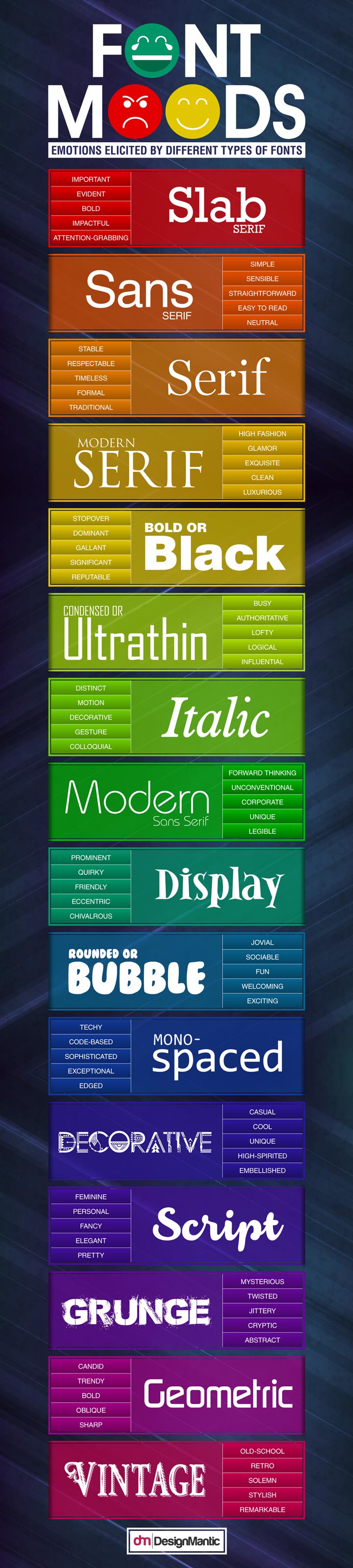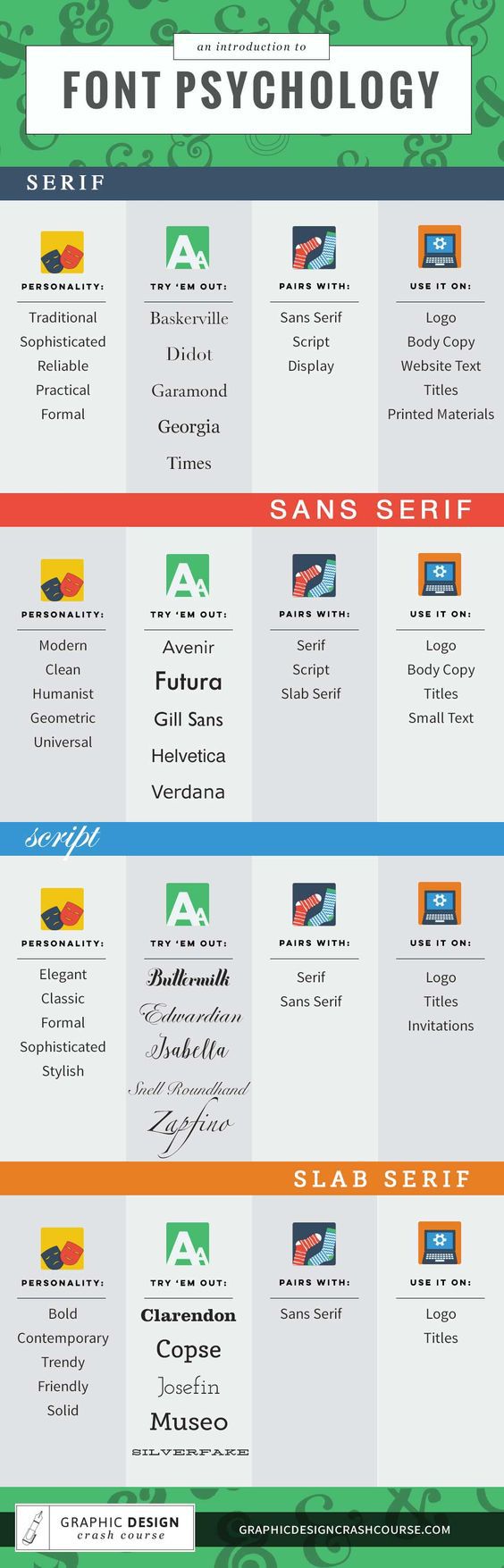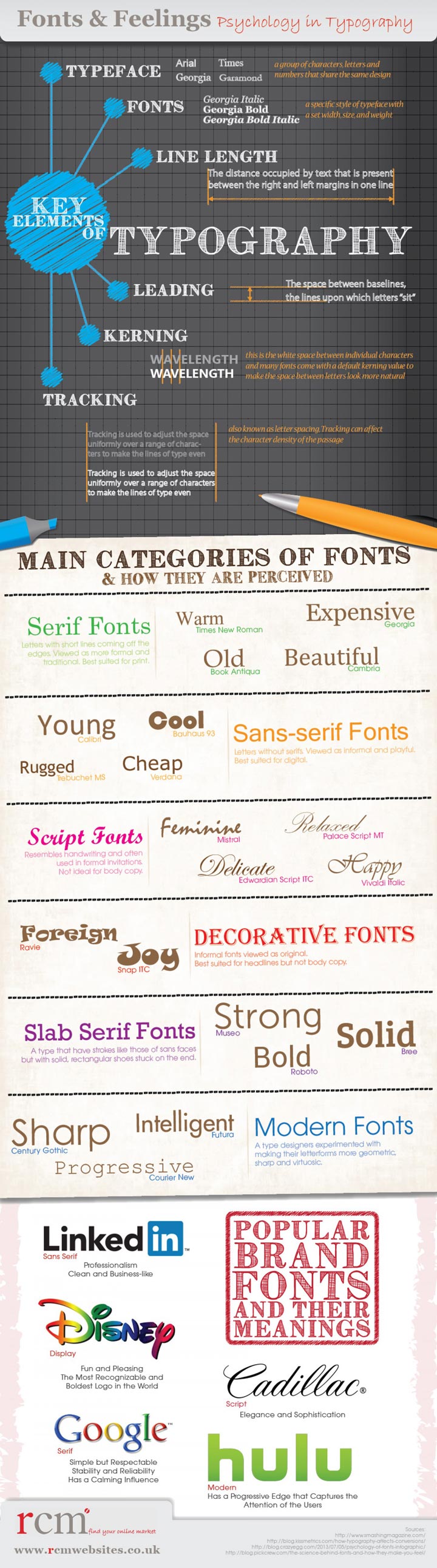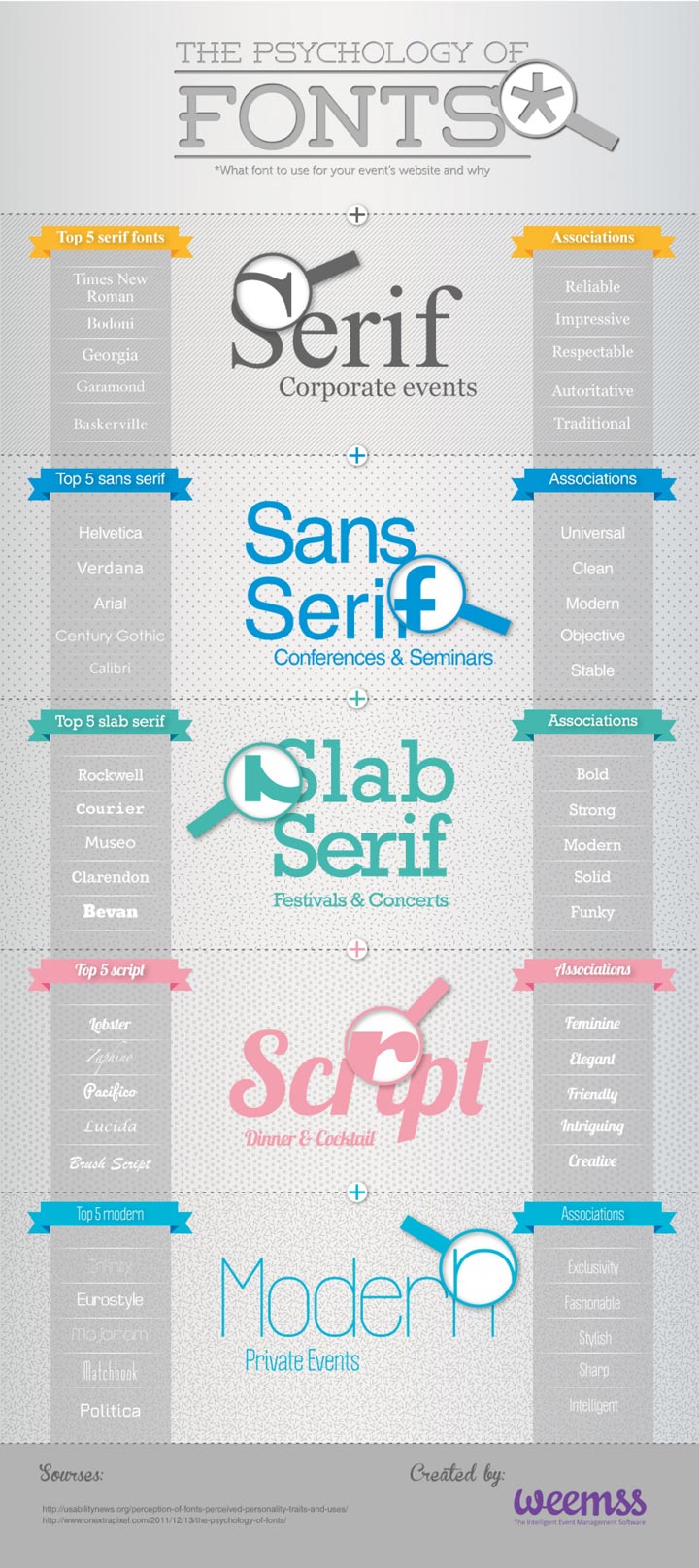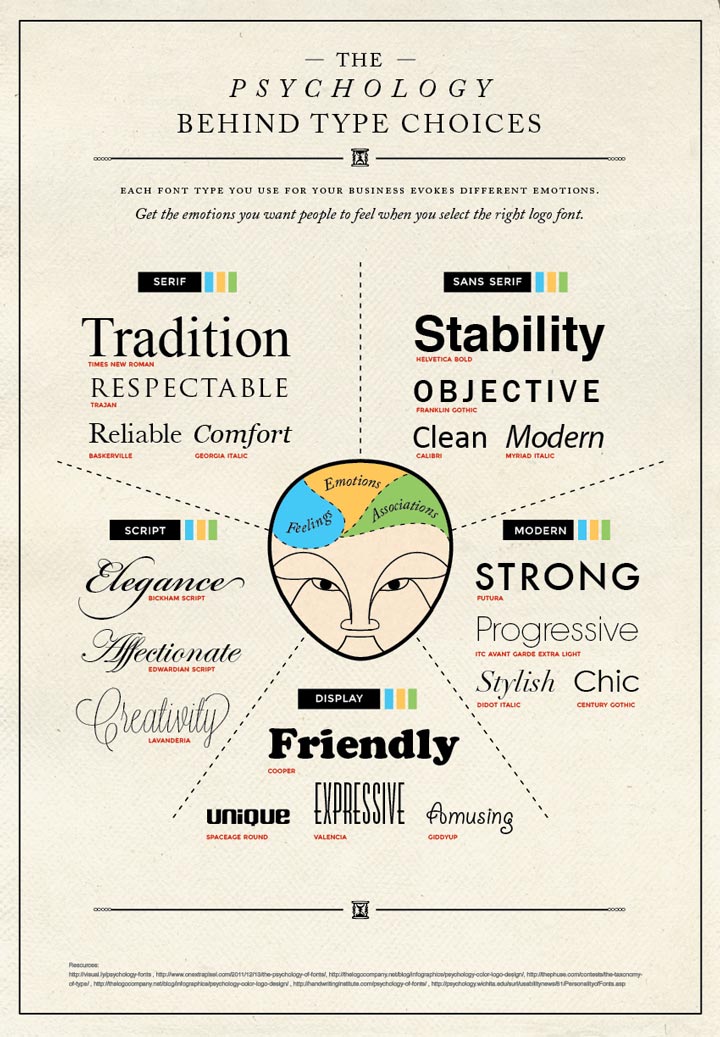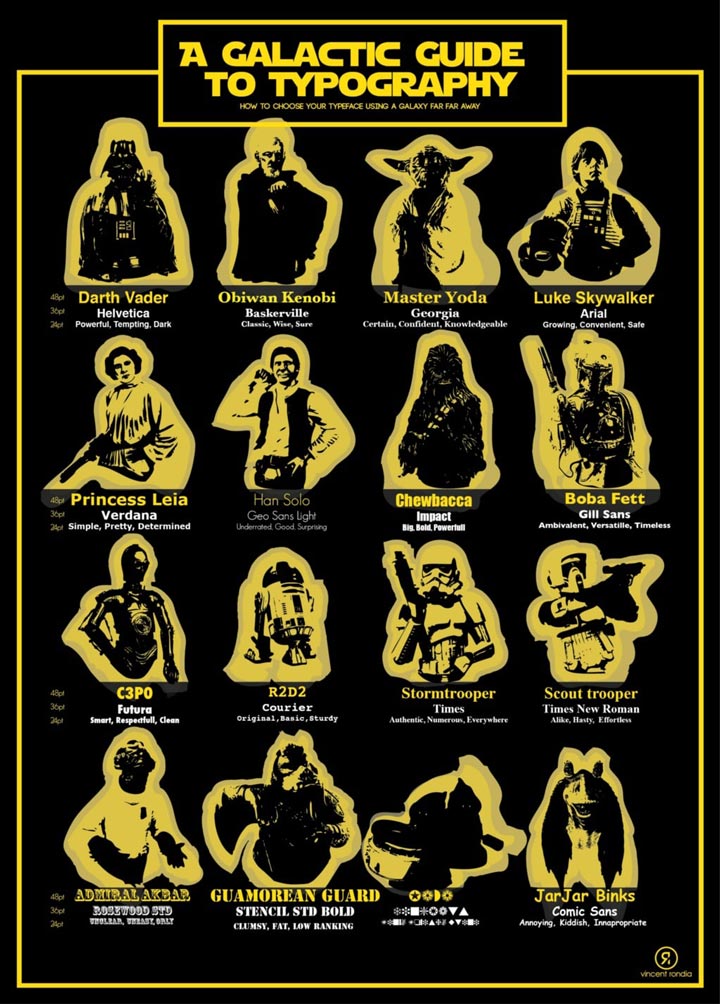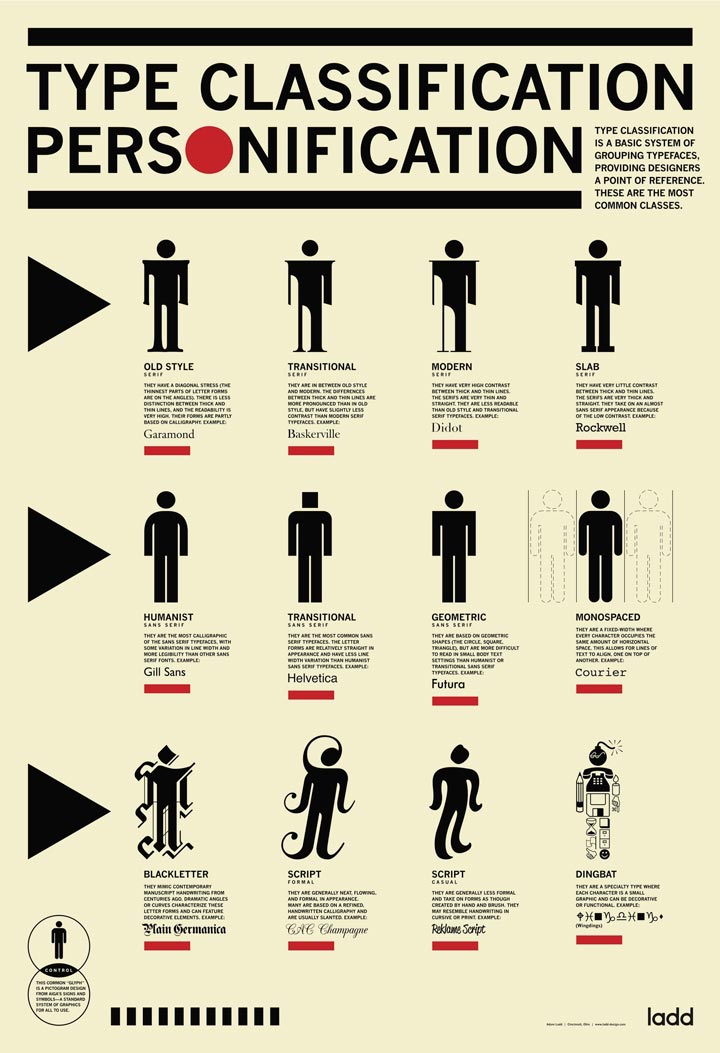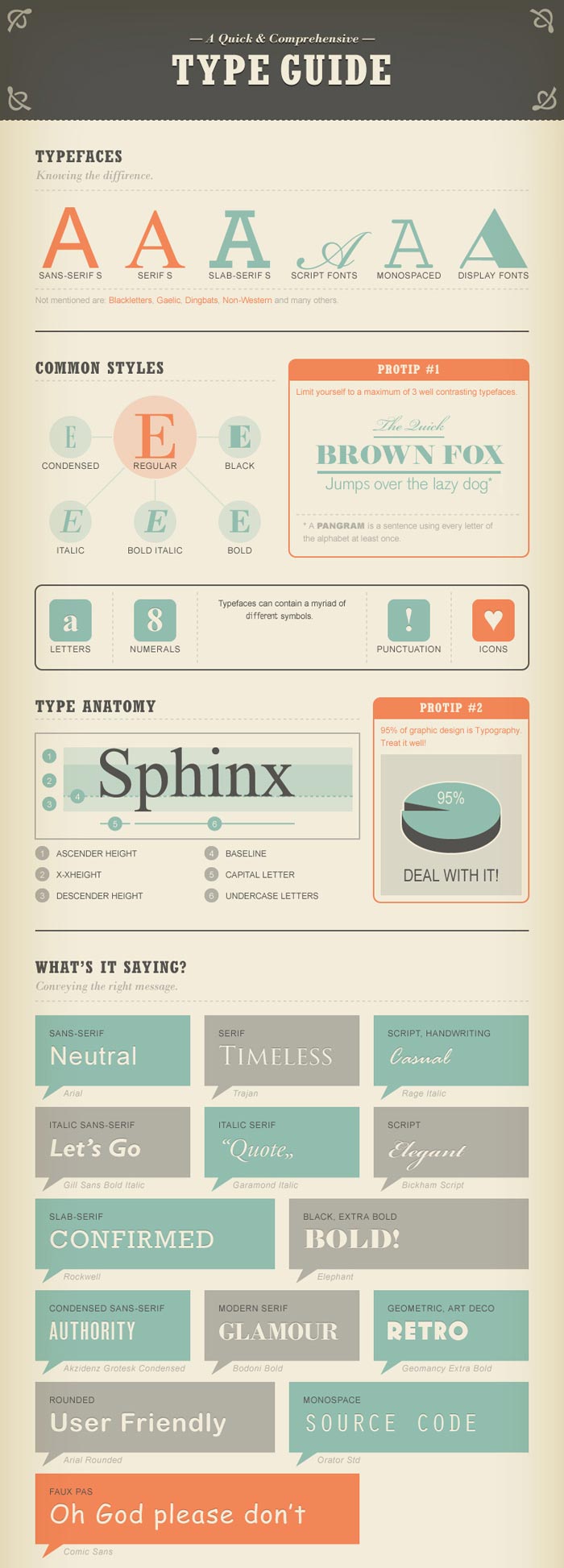
Font Personality: How to Choose Your Best
Wondering about font personality type?
Curious about the psychology of fonts?
A font can convey mood, attitude, and tone with a personality perceived from the font’s features.
Just as in color psychology, there’s a psychology of typography that affects your potential customers’ perception of your business.
So you want to get it right!
With 10 infographics and a fun video, we’ll cover:
• Serif, sans serif, modern, script, and more font types.
• The psychology of fonts.
• What fonts say about your business.
• Ugly fonts you never should use!
• Fonts personified in Star Wars characters.
• Bonus! How to identify a specific font name.
So much fun to be had, so let’s get started!
How to Determine Font Personality Type by Style
Fonts are classified by these broad categories:
• Serif
• Slab Serif
• Sans Serif
• Script
• and Display.
So the first thing you need to determine is which category that font fits into!
Serif typefaces have little feet or wings at each end. Serif fonts are seen as traditional, stable, practical, serious, mature, formal, scholarly, corporate, and business-like.
What's Your Font's Personality Type?
Slab Serif is a certain kind of serif typeface that has thick, squared-off serifs. Slab Serif fonts are more modern, but can also be perceived as bold, harsh, rude, assertive, coarse, or masculine.
Sans Serif fonts are typefaces without feet, which makes them look clean and understated. Their personality is contemporary, and sometimes sleek and elegant.
Script typefaces look like handwriting or calligraphy. They can range from casual to formal. They have soft organic and humanistic qualities that give them a warm personality.
Display typefaces have the most diverse and outspoken personalities. Their character forms often suggest a personality from a specific genre, era, or time period.
Here’s a little teaser of an infographic from UrbanFonts.com that’ll help you see the difference between serif and sans serif fonts. The full infographic has more examples, and you’ll find it at the end of this article (it’s super long!).
An Introduction to Font Psychology infographic
On this infographic from Kinkead Designs, you’ll see many popular typefaces and learn their font category and personality!
The Psychology of Fonts infographic
Here’s another clear depiction of 5 different font categories and what qualities they project to your audience.
This infographic from weemss.com will also show you the 5 most popular fonts in each category.
The Psychology Behind Type Choices infographic
This lovely infographic will show you the feelings, emotions, and associations evoked by the 5 font categories – and spelled out in the fonts themselves!
Designer and source unknown.
Fonts and Feelings: Psychology in Typography infographic
RCM Websites provides this infographic that clarifies some key terminology in typography, such as leading, kerning, and tracking.
You’ll not only learn how the top 6 categories of fonts are perceived, but also get a look at 5 big-brand logos, and what they say about their respective companies.
Font Moods Infographic
Learn the feelings elicited by 15 different types of fonts in this wonderfully colorful infographic from DesignMantic.
In this one, you’ll get to take a look at more categories of fonts, including:
• Italic fonts
• Ultra Thin fonts
• Black fonts
• Grunge fonts
• Vintage fonts
Plus 10 more!
Type Guide: What Fonts Say About Your Business
While everything we’ve covered above indirectly shows what fonts say, this clever infographic shows what they’d say if they could actually speak!
From Crazy Egg.
Fonts Personified as Star Wars Characters
Would more visualization help?
Here are two!
A Galactic Guide to Typography Infographic
This clever infographic teams up top font personalities with favorite Star Wars characters!
Type Classification Personification infographic
This one from the mind of Adam Ladd transforms type styles into little people icons!